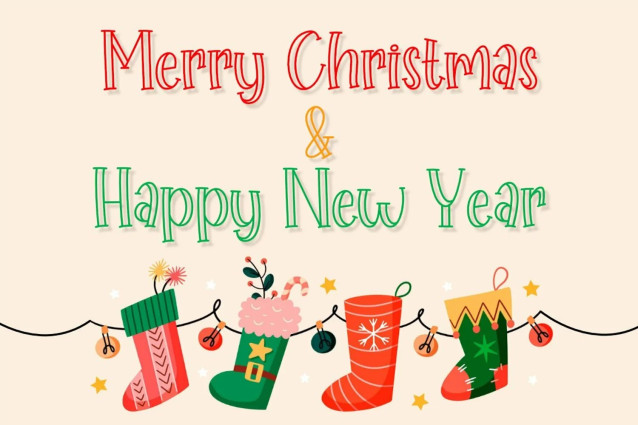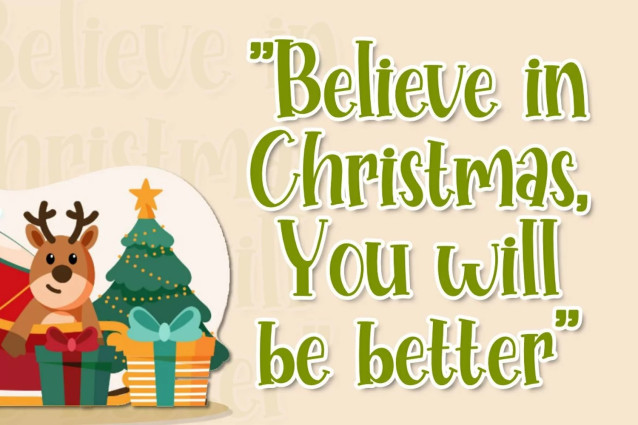
Hopeful Christmas Font
Hopeful Christmas Font is a playful and warm serif font. This font was particularly crafted for those who need a beautiful and refreshing look to their designs.